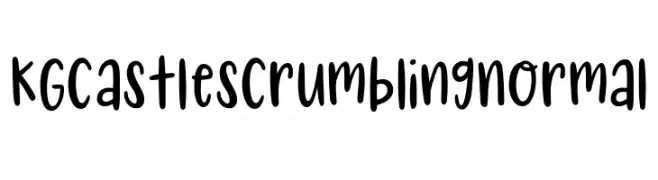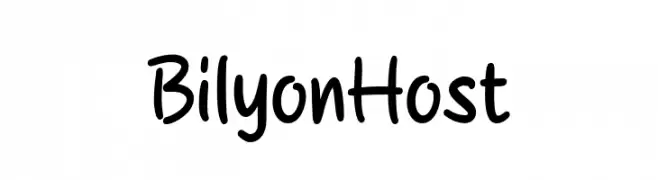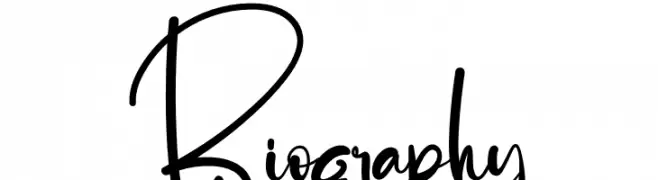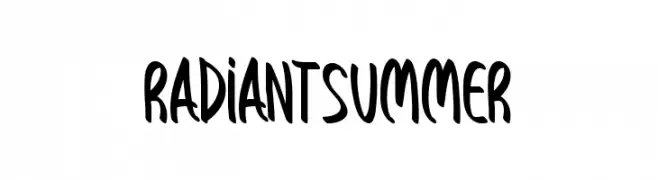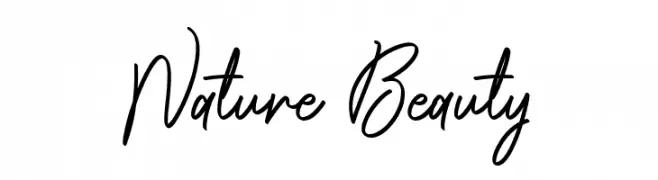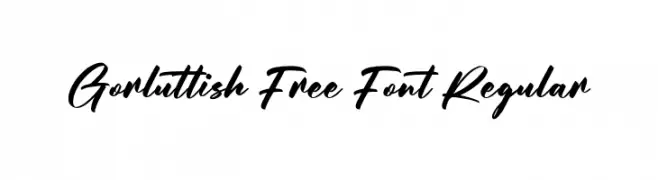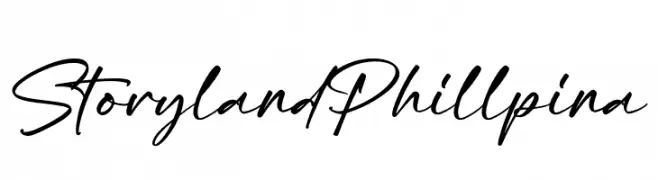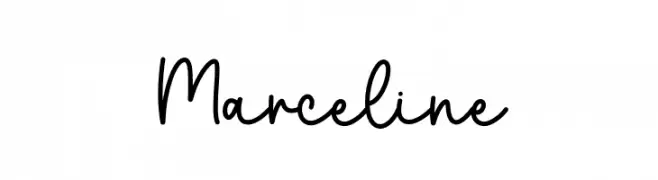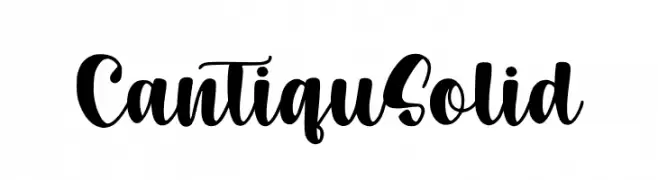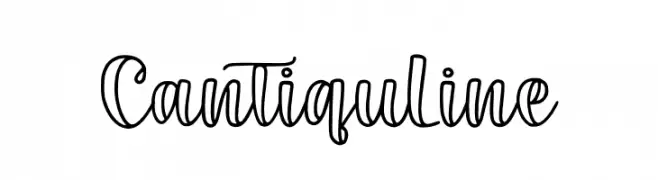
( Fonts by Kimberly Geswein )
A playful, handwritten font with a casual and friendly style.
( Fonts by Letterena Studios )
A sophisticated, cursive script font with high contrast and elegant flow.
( Fonts by MJType )
A playful, casual handwritten font with smooth, rounded strokes.
( Fonts by Scratchones )
A lively and playful handwritten font with fluid strokes and a casual vibe.
( Fonts by Letterena Studios )
A playful, handwritten font with a casual and dynamic style.
( Fonts by Md Shohail Bhuian )
A playful, hand-drawn font with bold, energetic strokes.
( Fonts by Letterena Studios )
A lively and expressive script font with fluid, dynamic strokes.
( Fonts by MJB Letters )
A graceful and fluid handwritten font with elegant, flowing strokes.
( Fonts by Maulana Creative )
A dynamic and fluid script font with elegant, flowing letterforms.
( Fonts by Letterena Studios )
A fluid and elegant script font with smooth, flowing lines.
( Fonts by Nirmala Creative )
A playful, handwritten font with a casual and friendly style.
( Fonts by Typebae Foundry )
A fluid, handwritten cursive font with a casual elegance.
( Fonts by Letterhend Studio )
A playful, handwritten font with smooth curves and a casual style.
( Fonts by Abo Daniel Studio )
A bold, flowing script font with elegant, connected characters.
( Fonts by Abo Daniel Studio )
A monoline script font with a smooth, flowing style and consistent line thickness.
( Fonts by Abo Daniel Studio )
An elegant, flowing script font with a handwritten style.
( Fonts by Maulana Creative )
A bold, cursive script font with a dynamic and energetic style.
( Fonts by Maulana Creative )
A dynamic, expressive handwritten font with fluid strokes and a lively character.
( Fonts by Mariyana )
A thin, elegant handwritten font with a casual, flowing style.
( Fonts by Phantom Studio )
A playful, handwritten font with bold, rounded characters and smooth lines.
( Fonts by I Putu Gede Krisna )
A playful and elegant handwritten font with flowing, interconnected letterforms.
( Fonts by PiPi Creative )
A bold, playful font with rounded, slanted letterforms for a casual look.
( Fonts by Behind the Ink )
A fluid and elegant script font with a handwritten quality.
( Fonts by Allouse Studio )
A fluid, elegant handwritten font with a natural cursive flow.
( Fonts by Tokopress )
A bold, cursive font with dynamic and flowing strokes.
( Fonts by Integritype Studio )
A dynamic and expressive handwritten font with fluid, interconnected strokes.
( Fonts by Muhadi )
A playful, casual handwritten font with irregular strokes and a whimsical appearance.
( Fonts by Jadatype )
A modern, elegant handwritten font with fluid, continuous strokes.
( Fonts by Hanna Bie )
A bold, handwritten font with a playful and energetic style.
( Fonts by Nirmala Creative )
A charming, rustic handwritten font with a casual yet elegant script style.